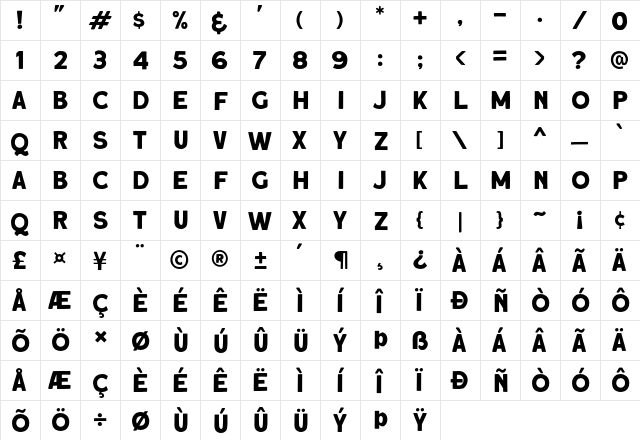
Roquen DEMO Regular
| Foundry | Letterhend |
| Designer | Umar Al Farouq |
Design Context for Roquen DEMO Typeface
Roquen DEMO offers clean, dependable letterforms without strong stylistic allegiance, making it a practical choice for designers who need flexibility.